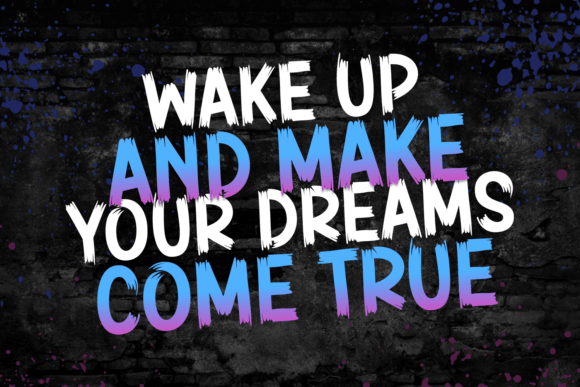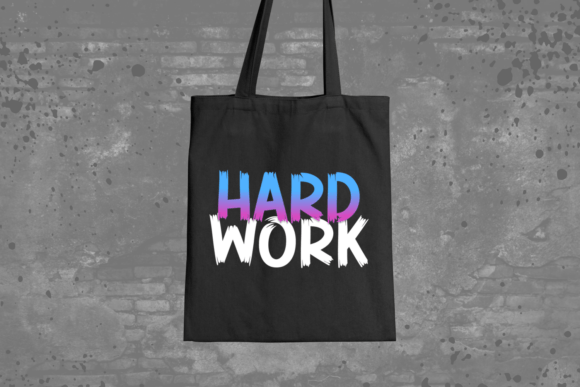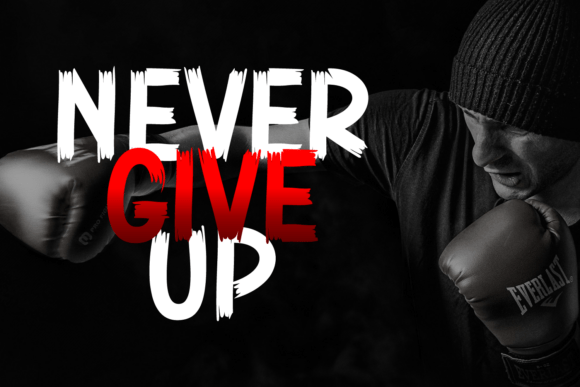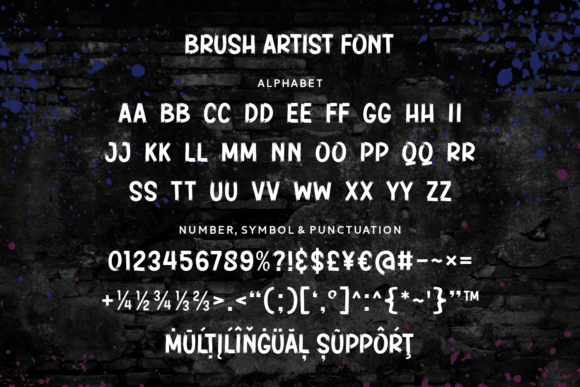
Unlocking Creativity with Brush Artist Font: A Dynamic Typeface for the Modern Designer
In the world of typography, few fonts manage to capture the essence of raw creativity and artistic expression as effectively as the Brush Artist Font. This dynamic typeface is a game-changer for designers and crafters looking to infuse their projects with a sense of urgency, creativity, or rugged authenticity. With its unique blend of energetic and slightly distressed appearance, the Brush Artist Font is poised to elevate your designs to new heights.
The Distinctive Characteristics of Brush Artist Font
So, what makes the Brush Artist Font stand out from the crowd? The answer lies in its raw, handcrafted brushstroke aesthetic. Each character is imbued with an organic, unrefined edge, suggesting spontaneous artistic creation rather than precise digital rendering. This gives the font a powerful, impactful presence that sets it apart from cleaner, more structured sans-serif or serif fonts.
When you take a closer look at the Brush Artist Font, you’ll notice the subtle imperfections and variations in line width that mimic the tactile quality of paint on a surface. This attention to detail creates a sense of depth and dimensionality, making your designs feel more dynamic and engaging.
A Comprehensive Font for Diverse Applications
The Brush Artist Font is more than just a visually striking typeface; it’s also incredibly versatile. The font includes a complete uppercase and lowercase alphabet, numerals, and a comprehensive set of punctuation and symbols. Additionally, it offers multilingual support, ensuring that your designs can reach a global audience.
Whether you’re working on a project that requires a bold, attention-grabbing headline or a more subtle, supporting text, the Brush Artist Font has got you covered. Its flexibility makes it an excellent choice for a wide range of applications, from sports and street art to music and action-oriented content.
Who Can Benefit from Brush Artist Font?
The Brush Artist Font is a valuable asset for anyone looking to add a touch of creativity and authenticity to their designs. Here are a few examples of individuals and businesses that can benefit from this dynamic typeface:
- Graphic Designers: Looking for a unique and expressive font to add to your portfolio? The Brush Artist Font is an excellent choice for creating striking visuals that showcase your artistic skills.
- Street Artists: If you’re looking for a font that reflects the raw energy and creativity of street art, look no further than the Brush Artist Font.
- Music Brands: The Brush Artist Font is a great fit for music-related projects, such as album covers, posters, and social media graphics.
- Sports and Fitness Brands: Add a touch of dynamism and energy to your sports-related designs with the Brush Artist Font.
- Small Business Owners: If you’re looking for a way to differentiate your brand and add a personal touch to your marketing materials, the Brush Artist Font is an excellent choice.
Tips for Using Brush Artist Font Effectively
To get the most out of the Brush Artist Font, here are a few tips to keep in mind:
- Use it sparingly: While the Brush Artist Font is attention-grabbing, it can be overwhelming if overused. Balance it with simpler fonts to create visual hierarchy.
- Experiment with colors: The Brush Artist Font looks great in bold, vibrant colors. Don’t be afraid to experiment and find the perfect color scheme for your design.
- Mix and match: Combine the Brush Artist Font with other fonts to create a unique and visually appealing typography.
The Brush Artist Font is a powerful tool for designers and crafters looking to add a touch of creativity and authenticity to their projects. With its unique blend of energetic and slightly distressed appearance, this dynamic typeface is poised to elevate your designs to new heights. Whether you’re working on a sports-related project, street art, music, or action-oriented content, the Brush Artist Font is an excellent choice. So why wait? Unlock your creativity and take your designs to the next level with the Brush Artist Font.